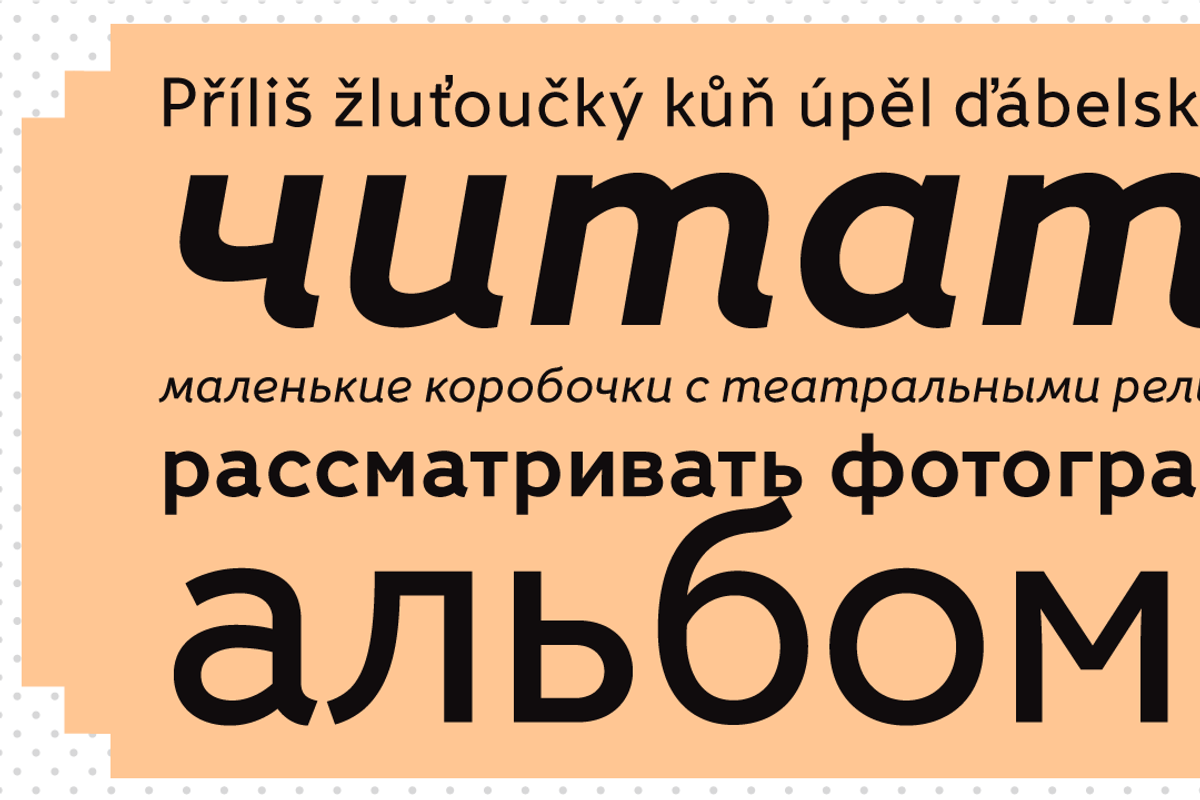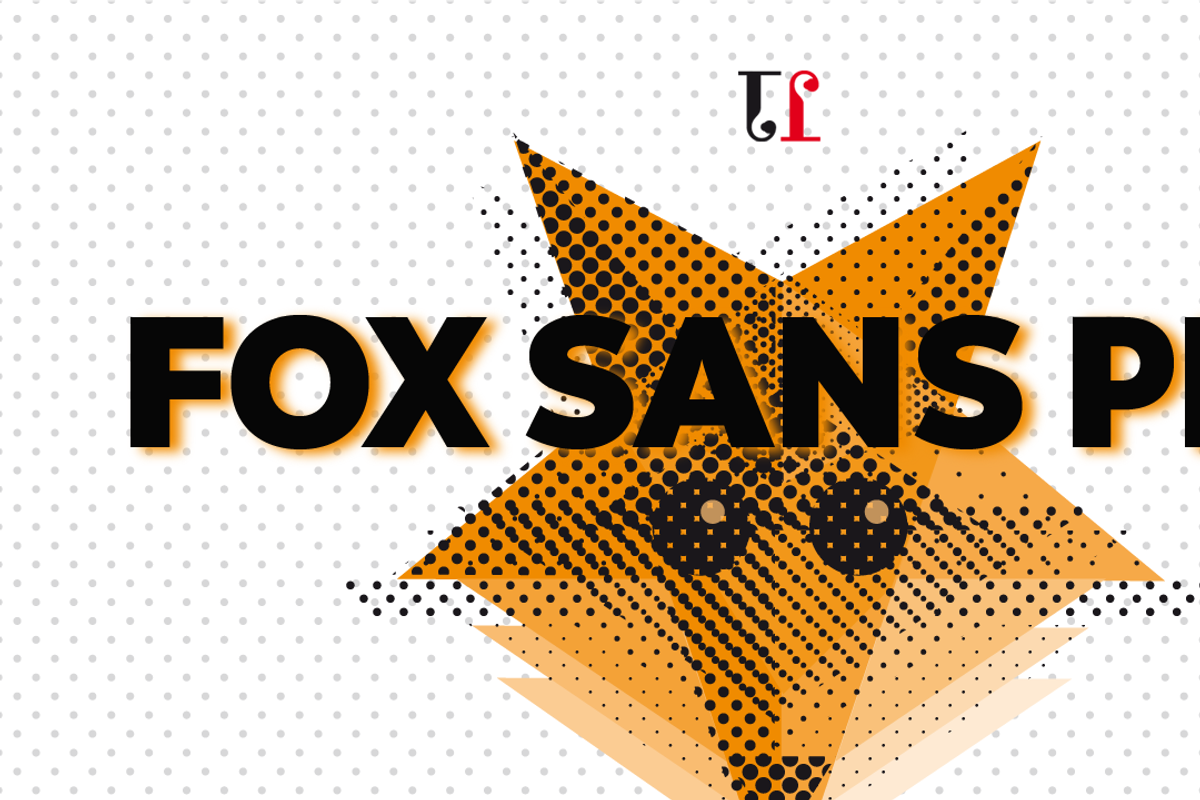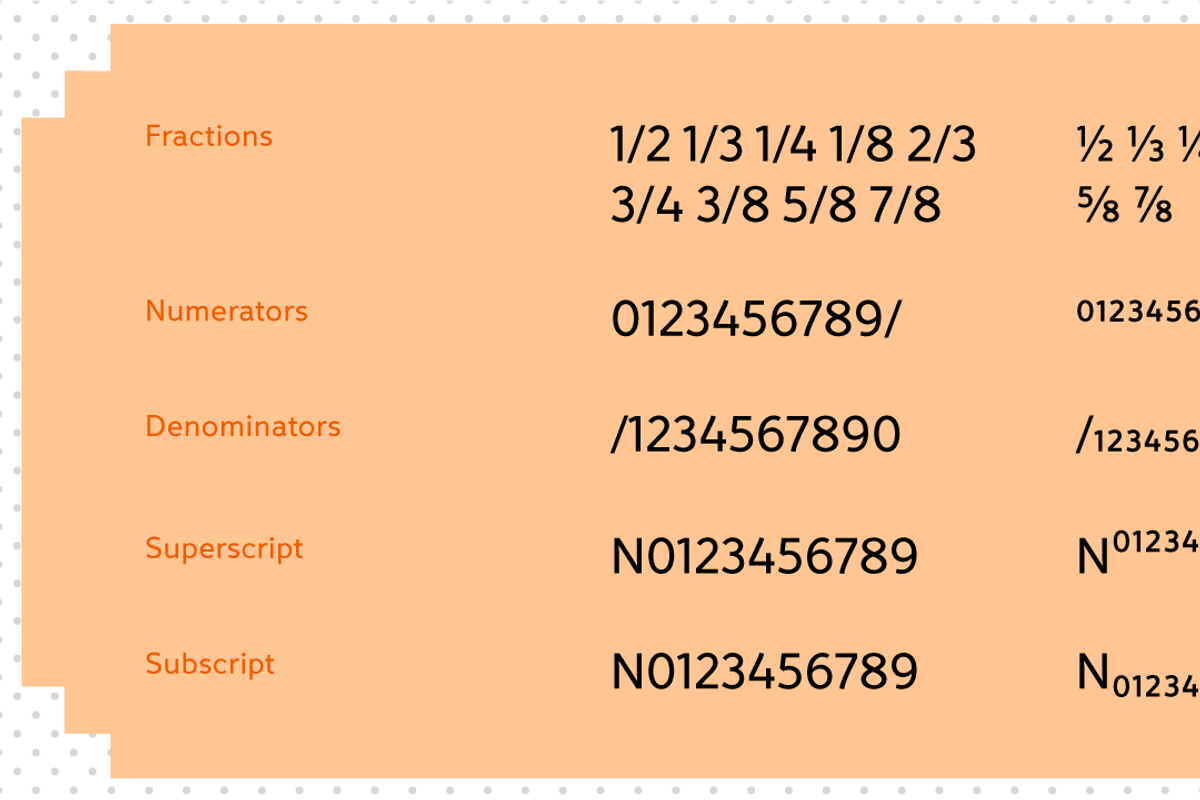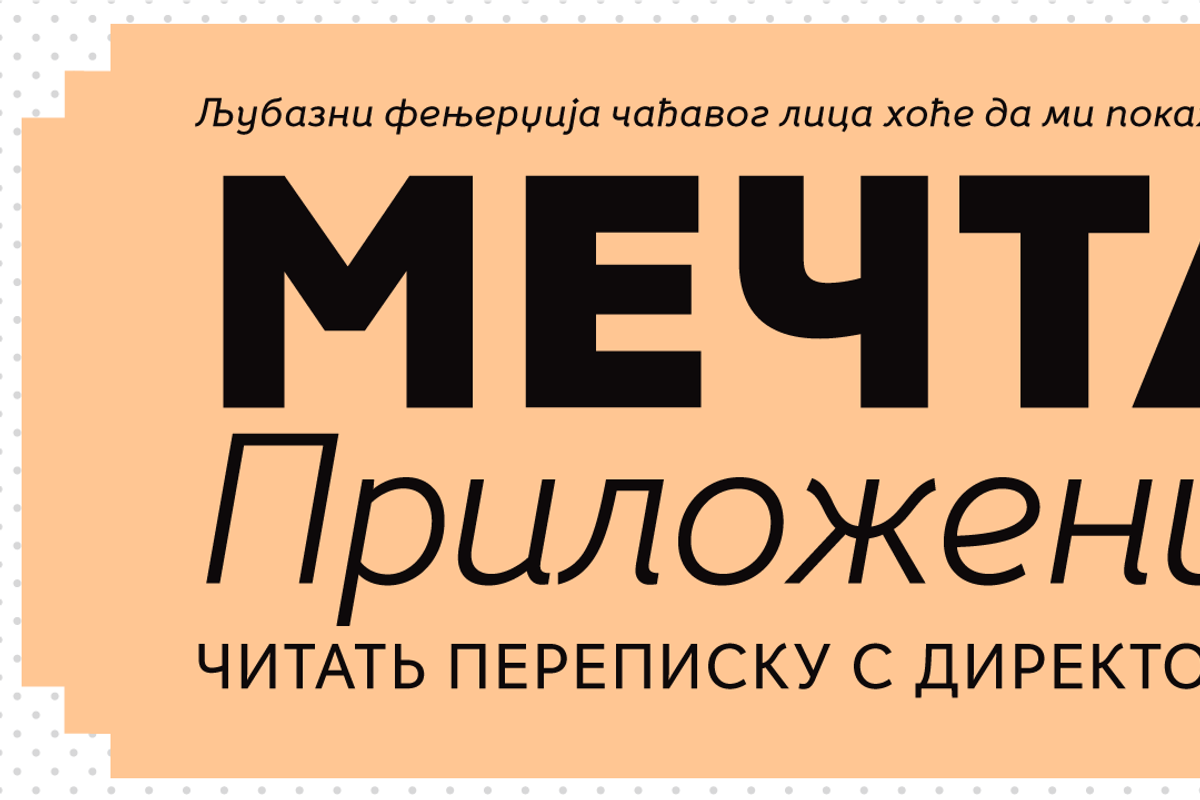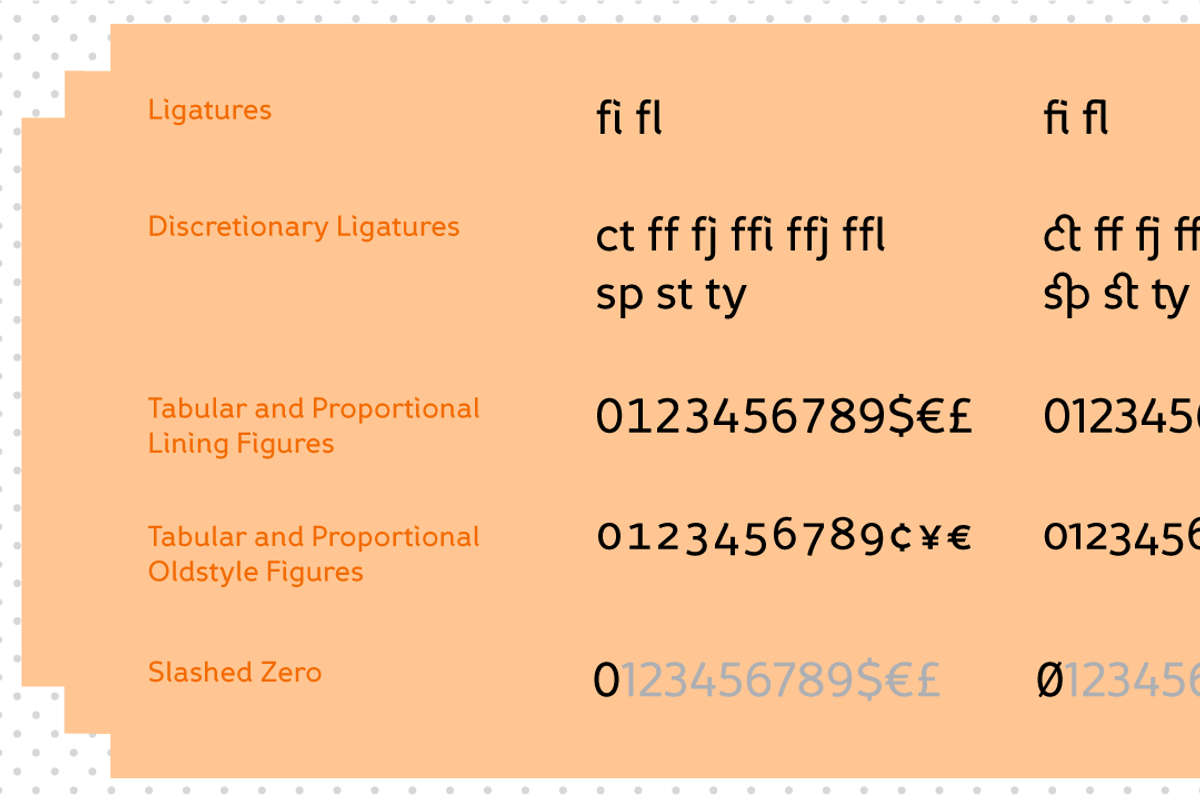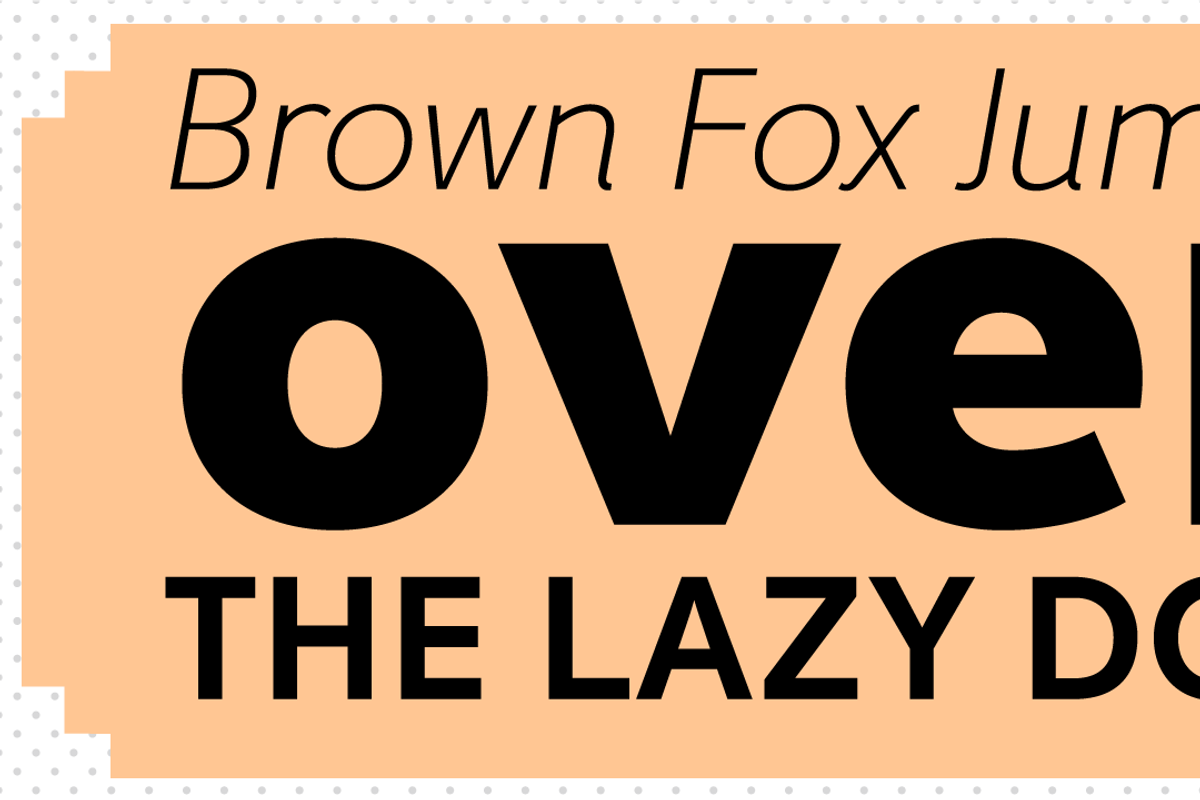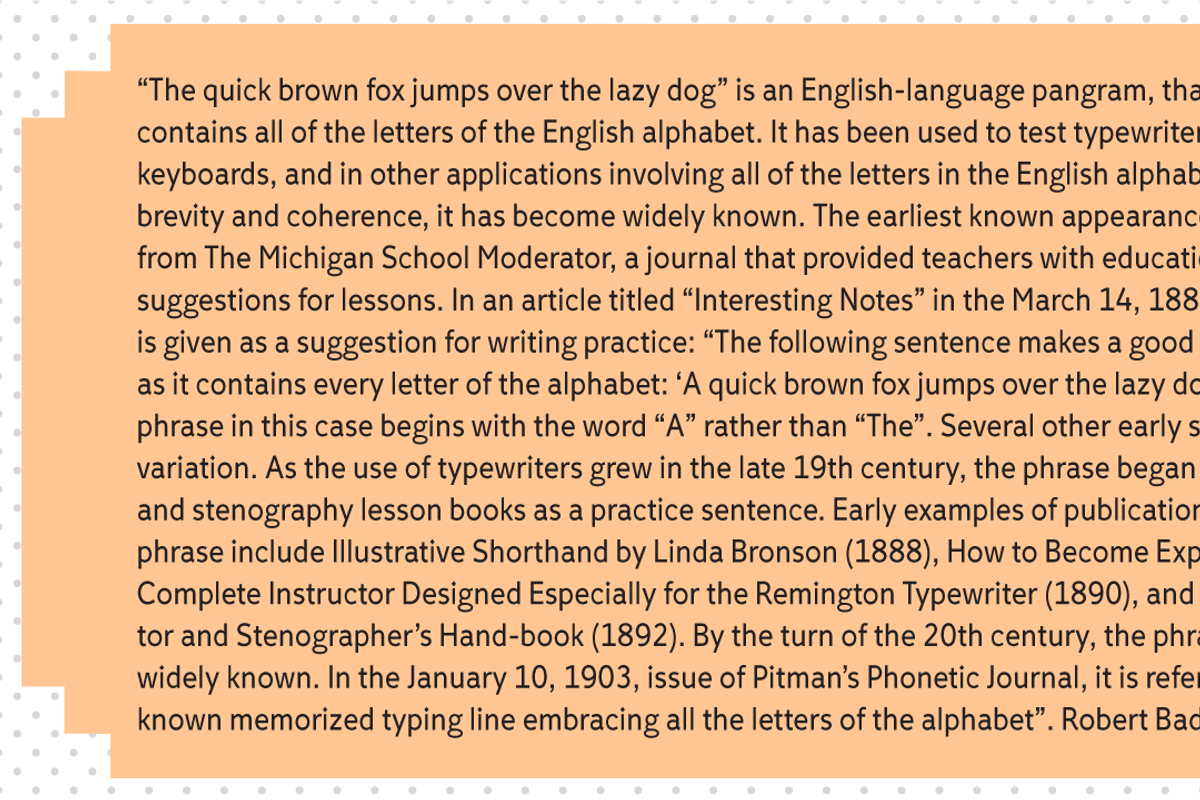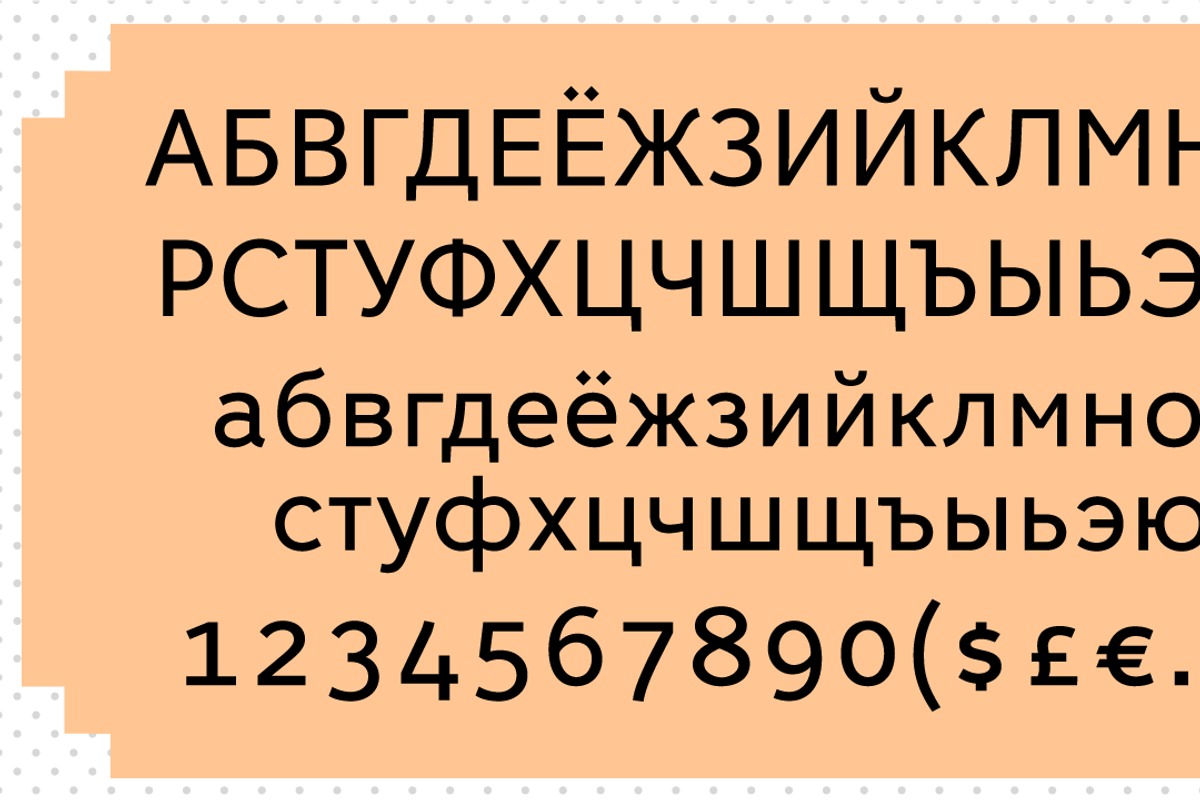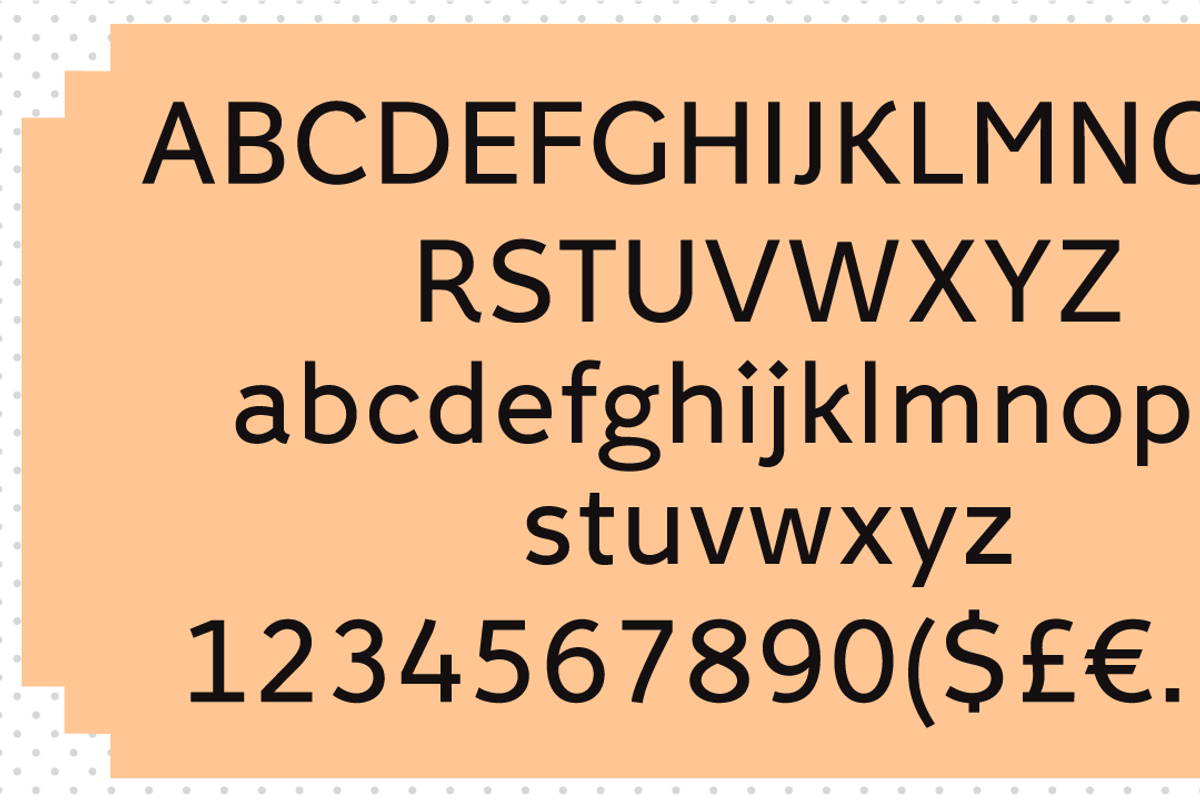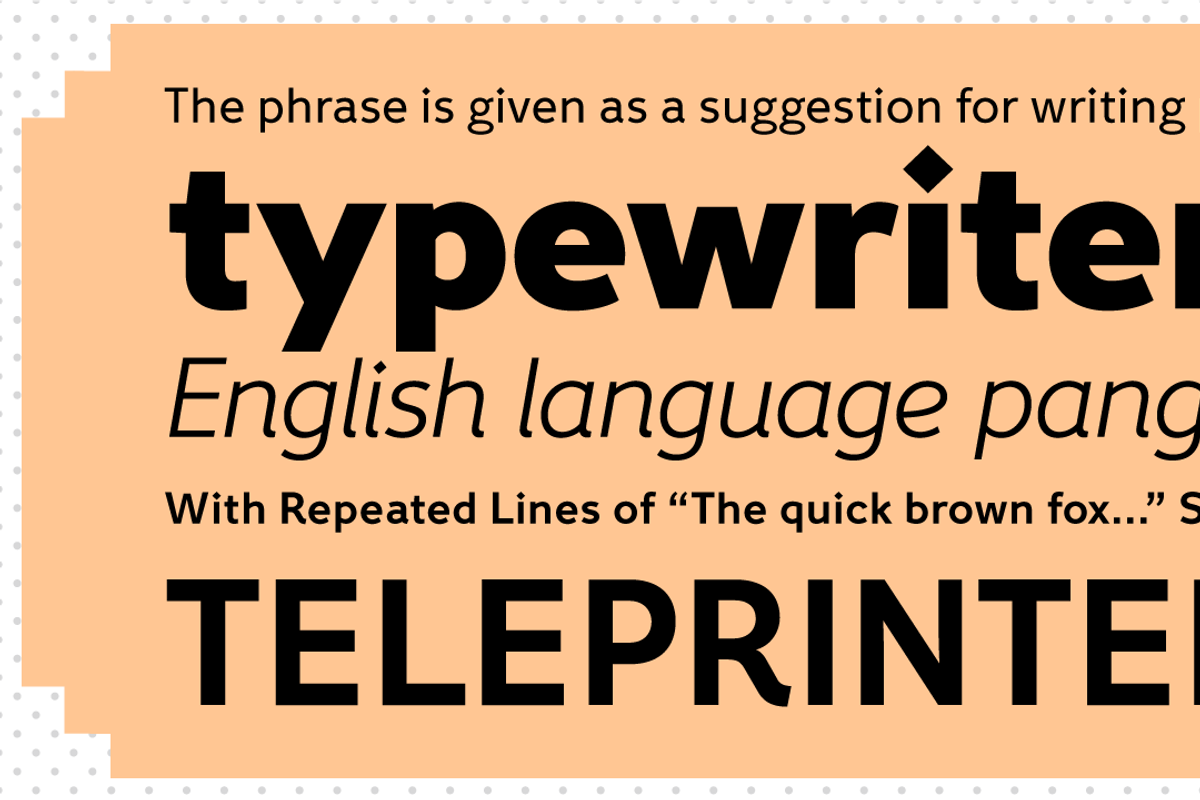
Fox Sans Pro
Fox Sans Pro is a humanist sans-serif typeface designed for readability. It features a soft and approachable aesthetic, making it suitable for both headlines and body text. The font supports a wide range of Latin and Cyrillic languages.